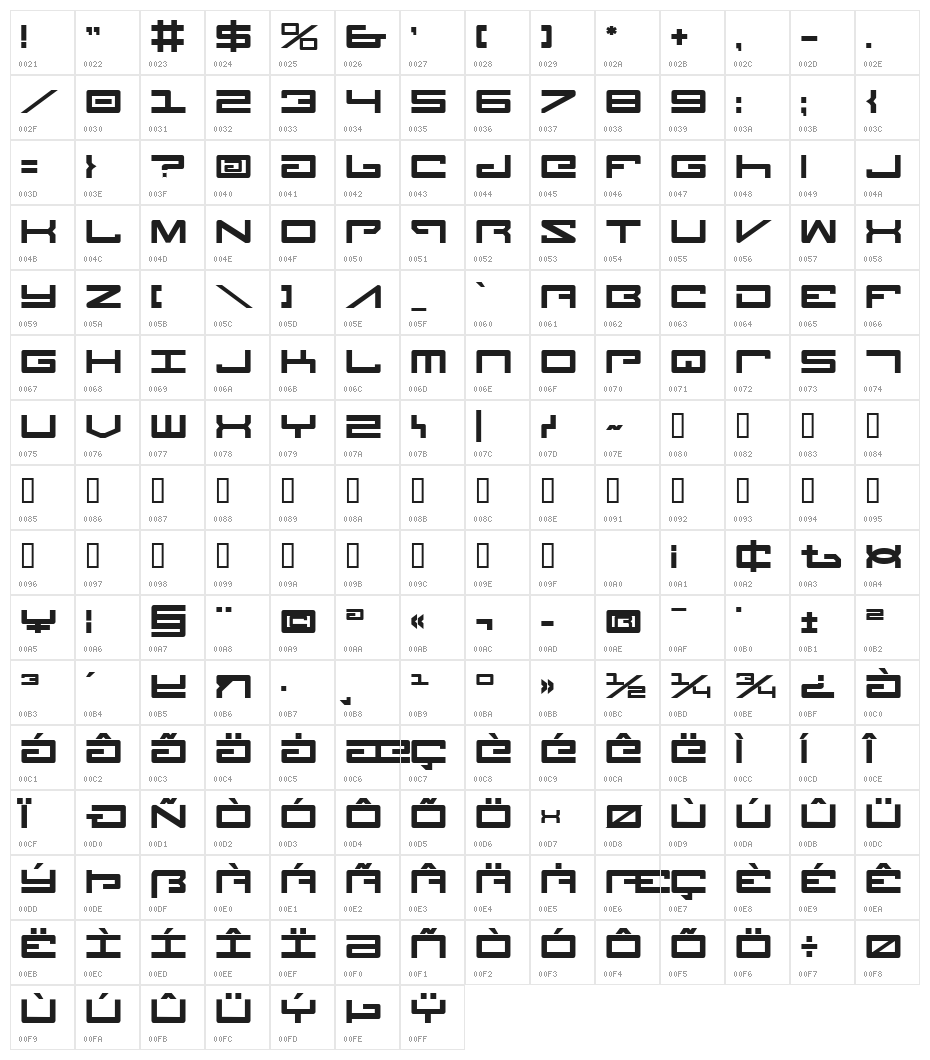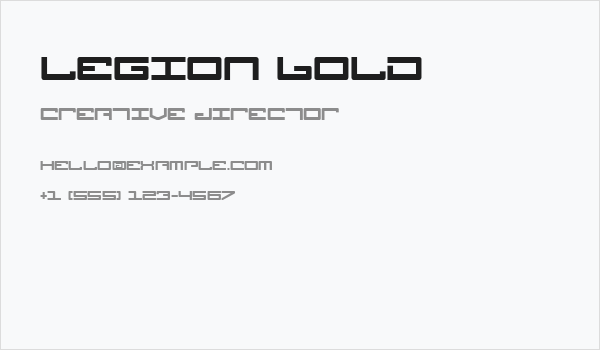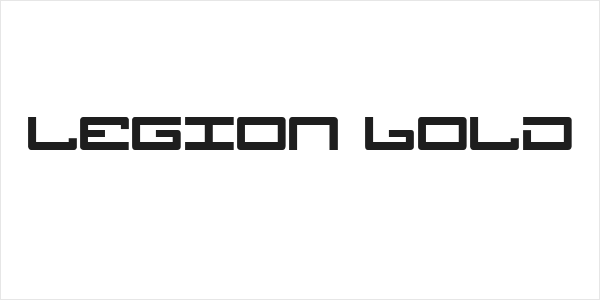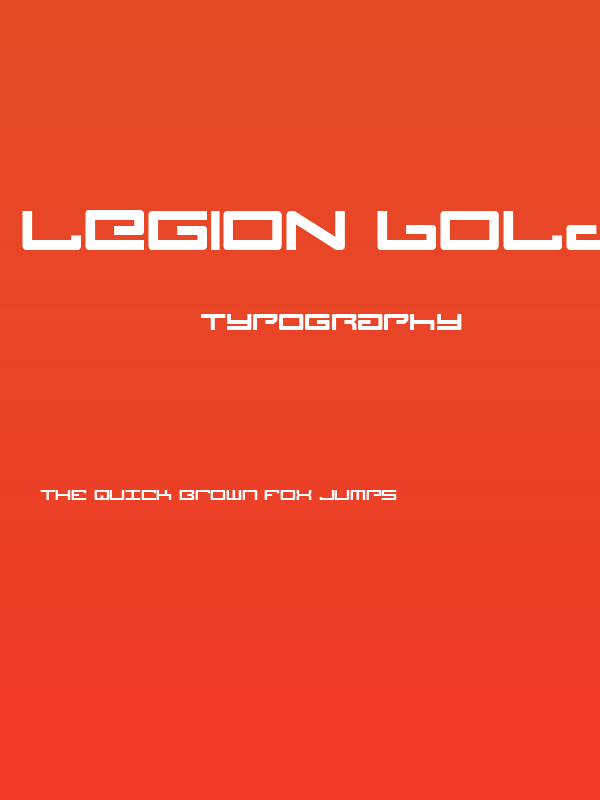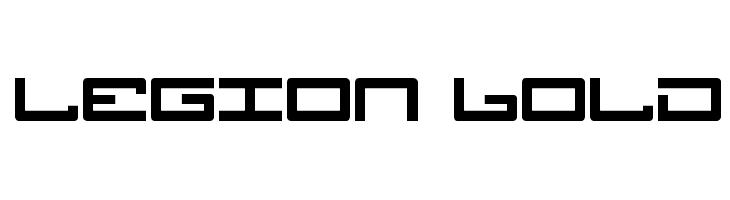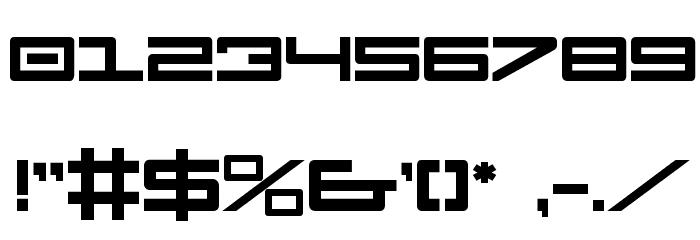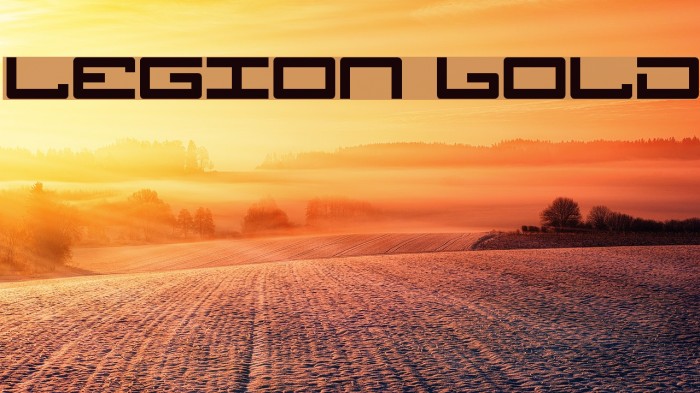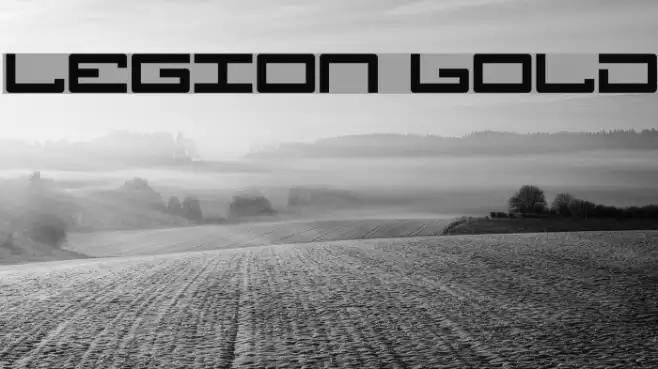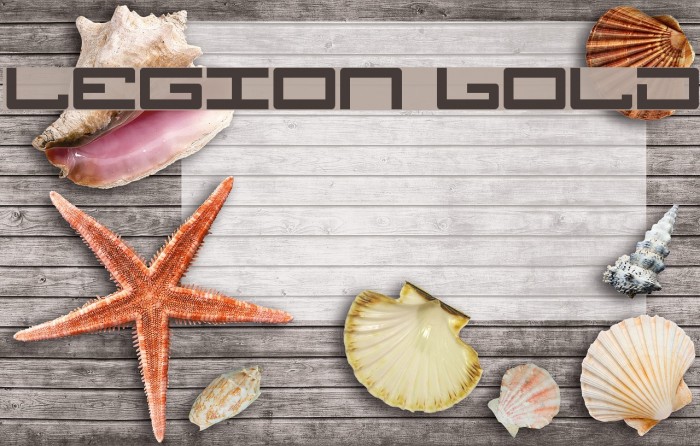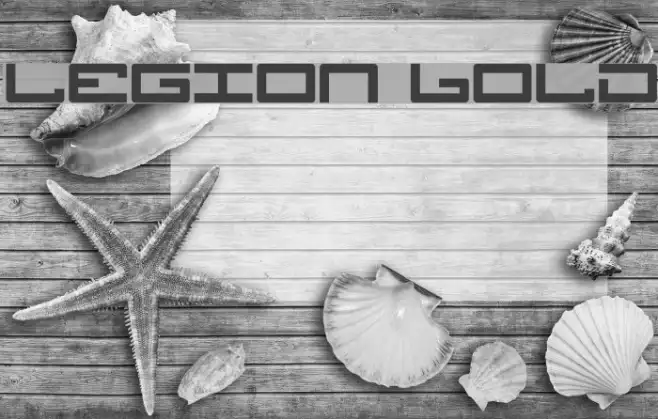
Legion Bold Font
Legion Bold Description
This font features a bold, futuristic design with geometric shapes and sharp angles. The characters are uniform in height, creating a cohesive and structured appearance. The uppercase and lowercase letters maintain a consistent style, emphasizing straight lines and right angles. The numbers and special characters follow the same design principles, ensuring a seamless integration with the alphabet. The font's boldness and unique style make it stand out, while its geometric nature gives it a modern, tech-inspired feel. It's ideal for projects that require a strong visual impact and a contemporary aesthetic.
| Proposed Projects | Ideal for technology branding, sci-fi posters, video game titles, and modern logo designs. |